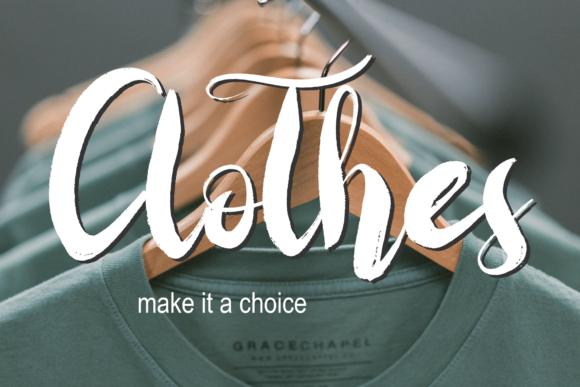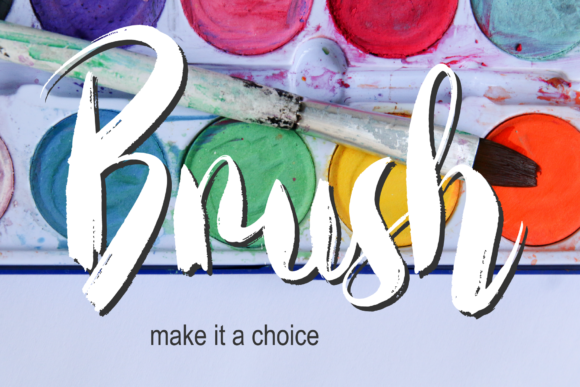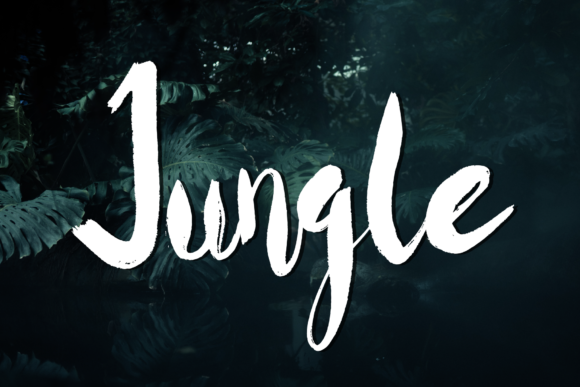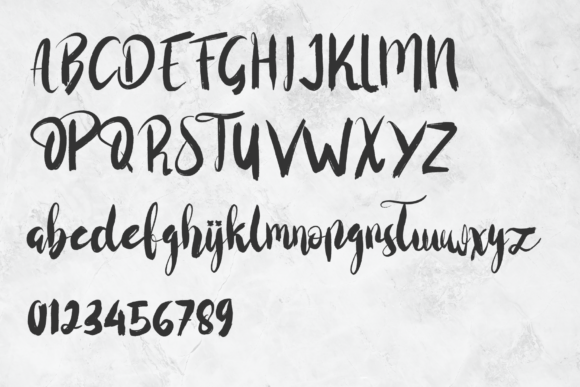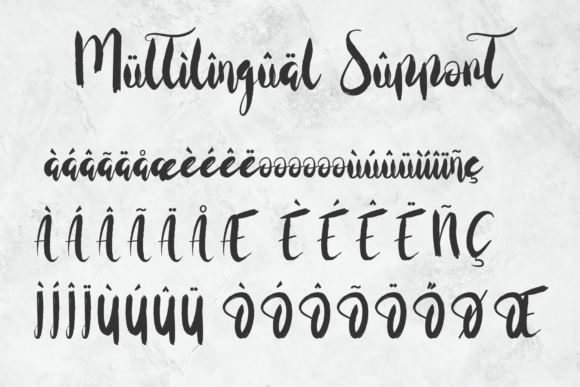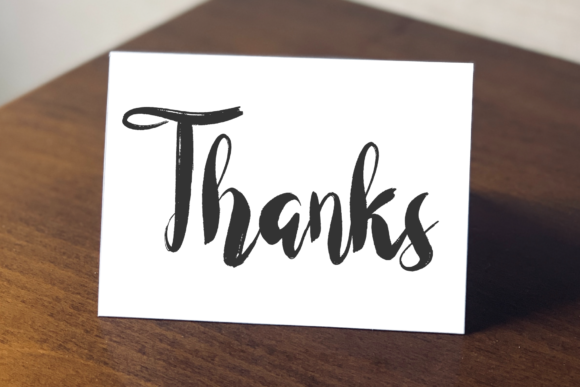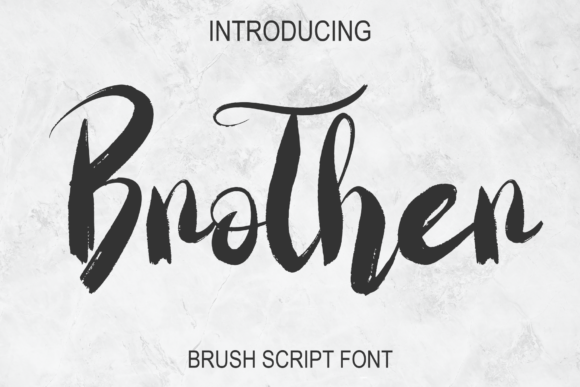
Discover the Charm of Brother Font: Elevate Your Designs with a Trendy Handwritten Script
In the world of typography, fonts play a crucial role in conveying the tone and personality of a design. For designers and crafters looking to add a touch of romance and elegance to their projects, the Brother Font is an excellent choice. This versatile script font has gained popularity for its unique blend of trendiness and classic charm, making it suitable for a wide range of applications.
What is Brother Font?
Brother Font is a stylish handwritten script font that has captured the hearts of designers and crafters alike. Its distinctive characters and flowing strokes evoke a sense of nostalgia and romance, making it perfect for projects that require a personal touch. Whether you’re working on a greeting card, invitation, or headline, Brother Font is guaranteed to add a touch of sophistication and whimsy to your design.
Key Features of Brother Font
- Trendy and Versatile: Brother Font boasts a modern yet timeless aesthetic that makes it suitable for various design projects, from digital media to print materials.
- Handwritten Charm: The font’s handwritten nature gives it a unique, personal feel that resonates with audiences and adds an emotional connection to your designs.
- Elegant and Romantic: The flowing strokes and delicate characters of Brother Font infuse designs with a romantic and elegant vibe, perfect for wedding-related projects, Valentine’s Day cards, and more.
- Easy to Read: Despite its ornate appearance, Brother Font remains highly legible, making it an excellent choice for both headlines and body text.
Applications of Brother Font
The versatility of Brother Font makes it an invaluable asset for designers and crafters working on a variety of projects. Here are some popular applications:
- Greeting Cards: Add a personal touch to your greeting cards for special occasions like weddings, anniversaries, and Valentine’s Day.
- Invitations: Create elegant and memorable invitations for events, parties, and formal gatherings.
- Headlines and Titles: Use Brother Font to create eye-catching headlines and titles for blogs, magazines, and digital content.
- Branding and Packaging: Incorporate Brother Font into your brand’s visual identity to convey a sense of sophistication and elegance.
- DIY Projects: Crafters can use Brother Font to add a professional touch to their handmade projects, such as scrapbooking, journaling, and crafting.
Tips for Using Brother Font Effectively
To make the most of Brother Font, consider the following tips:
- Pair with Complementary Fonts: Combine Brother Font with simpler fonts to create visual contrast and enhance readability.
- Adjust Font Size and Weight: Experiment with different font sizes and weights to achieve the desired level of emphasis and hierarchy in your design.
- Use Color Wisely: Select colors that complement the romantic and elegant feel of Brother Font, such as soft pastels, rich jewel tones, or classic black and white.
Brother Font is a trendy handwritten script font that offers a unique blend of elegance, romance, and versatility. Its wide range of applications makes it an excellent addition to any designer’s or crafter’s toolkit. By incorporating Brother Font into your projects, you’ll be able to add a touch of sophistication and whimsy that will captivate your audience and leave a lasting impression.